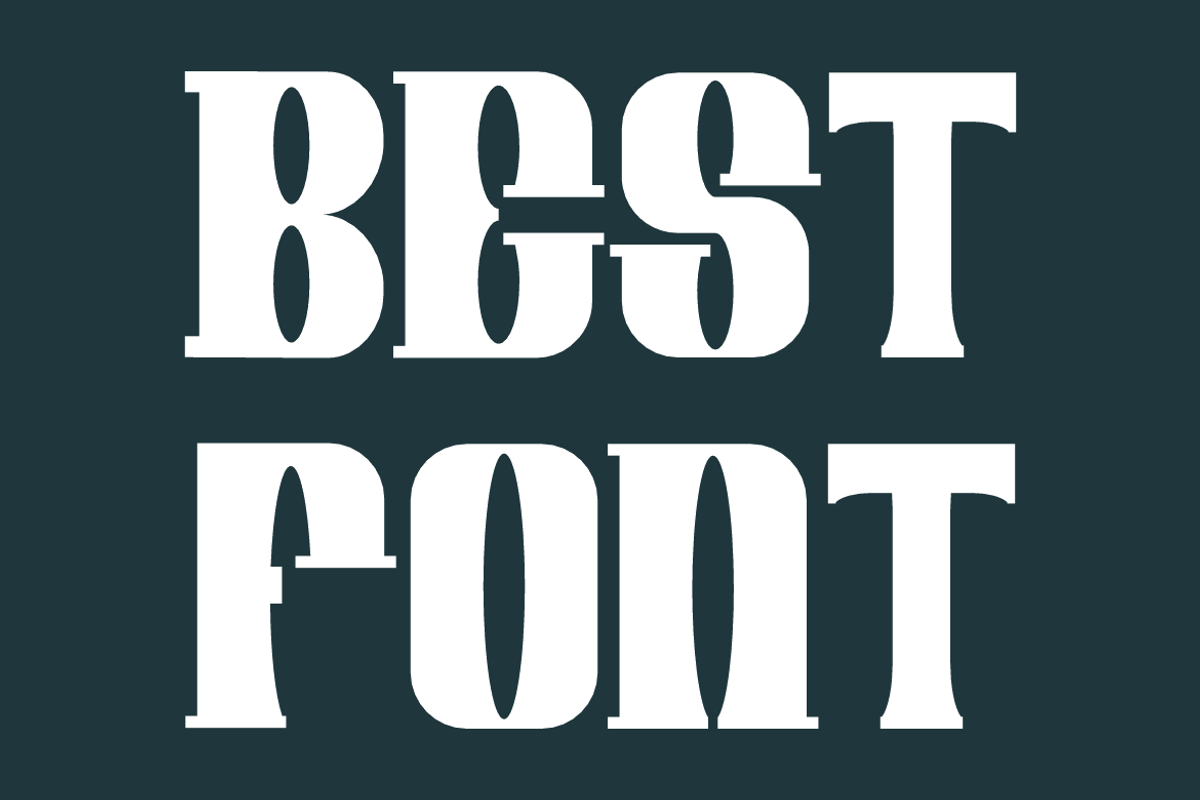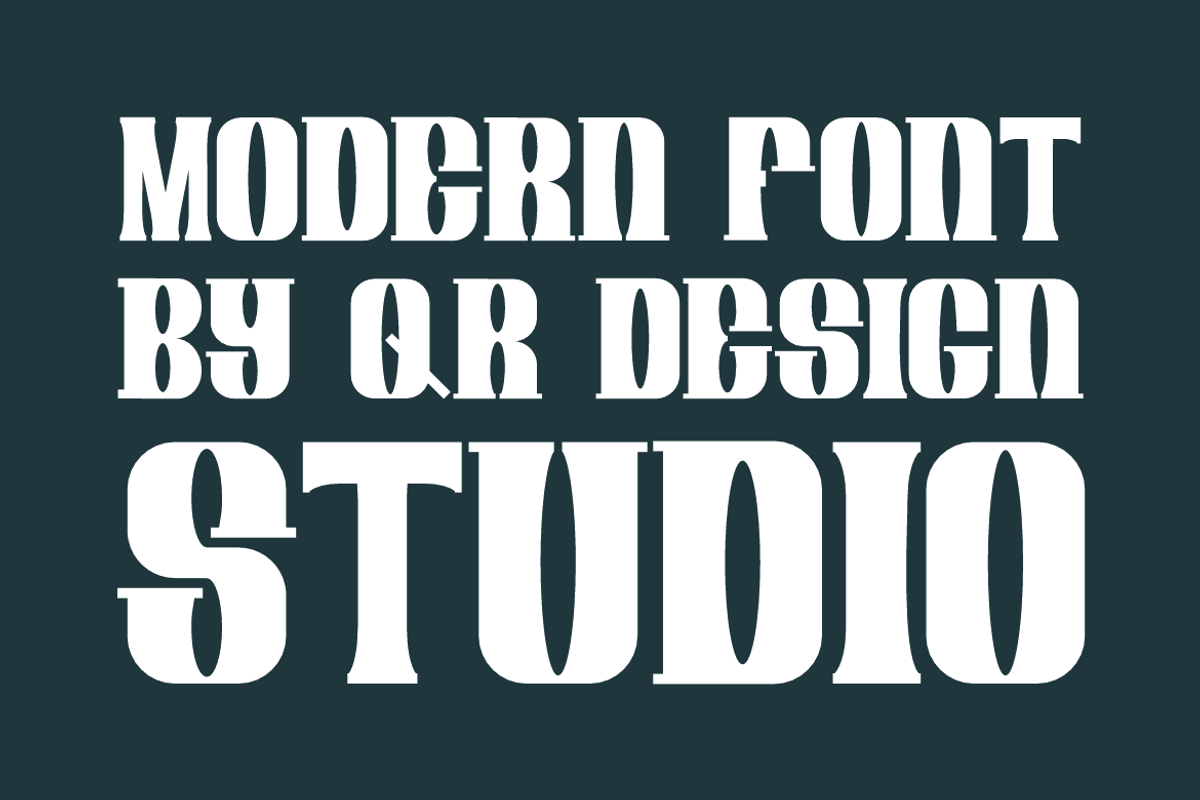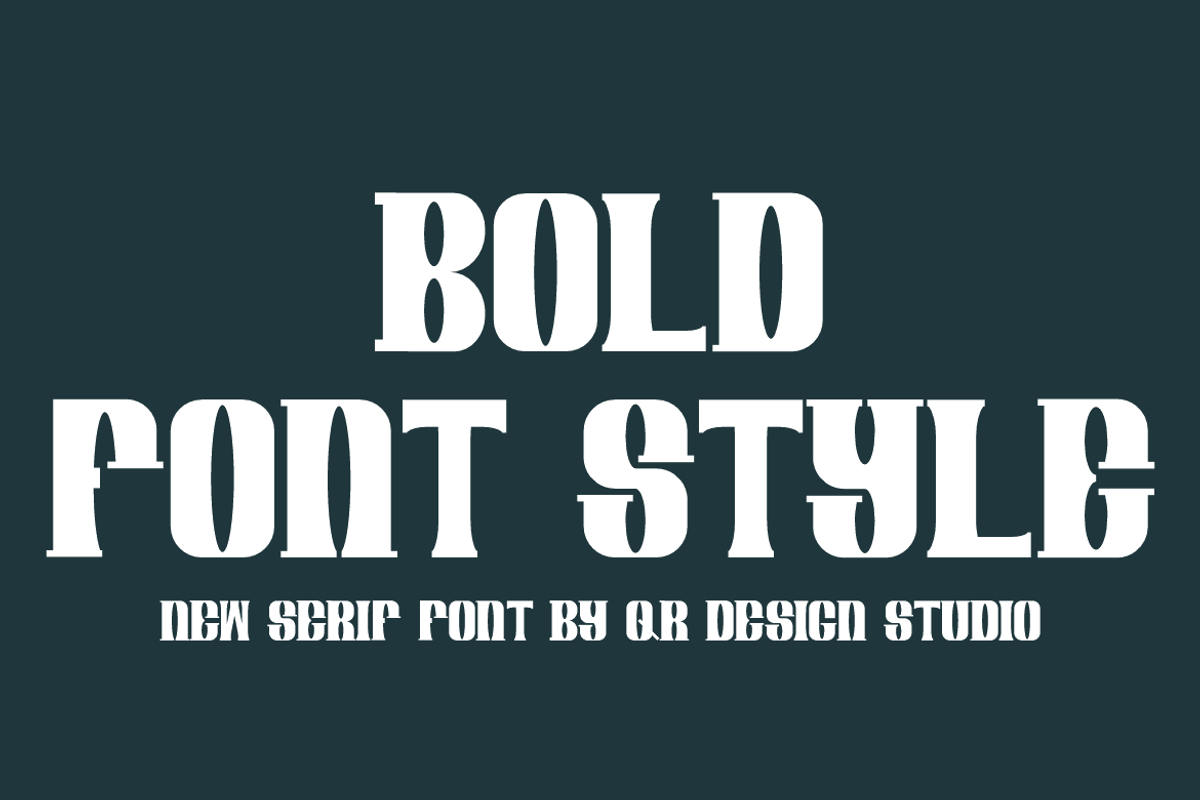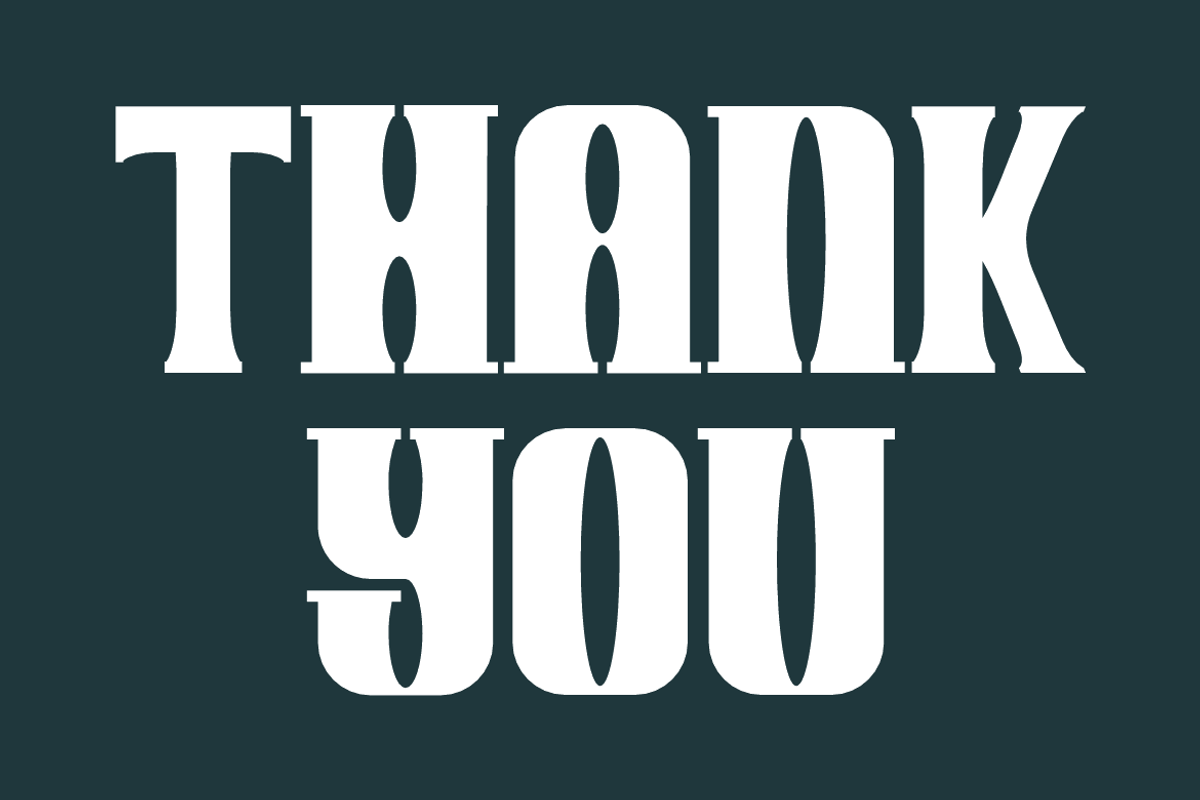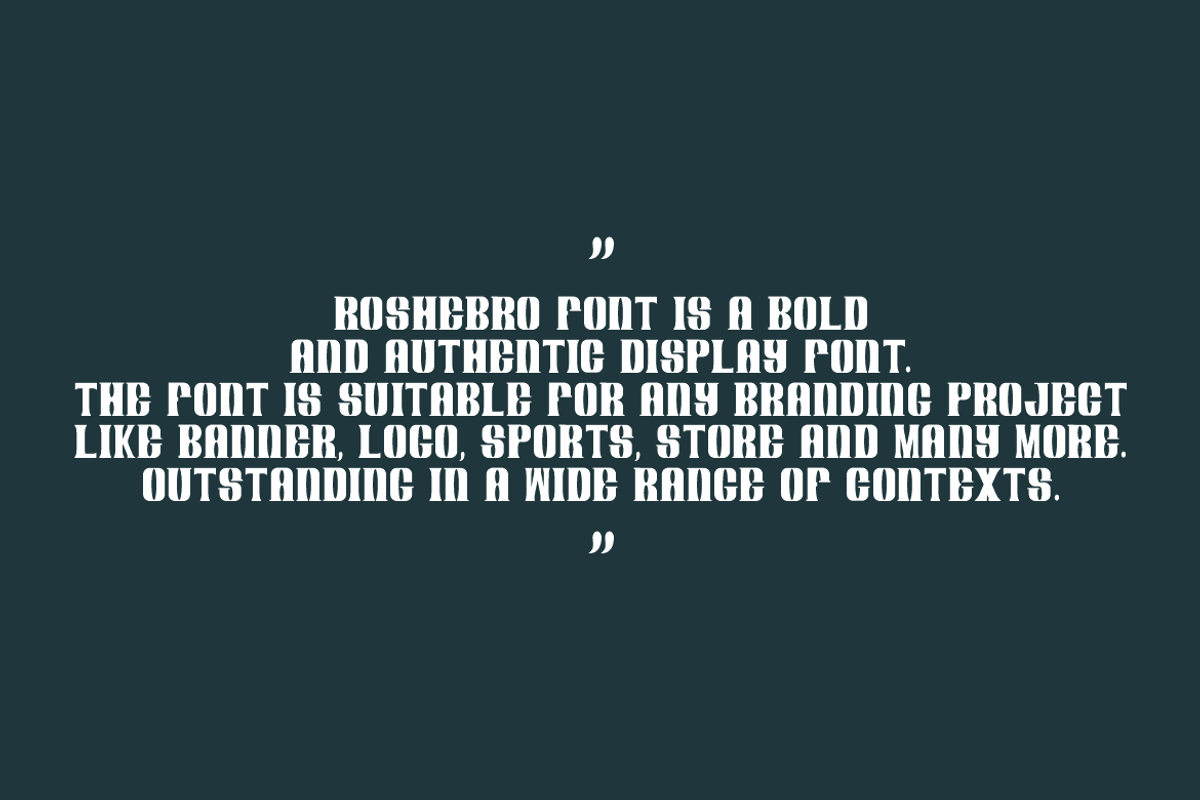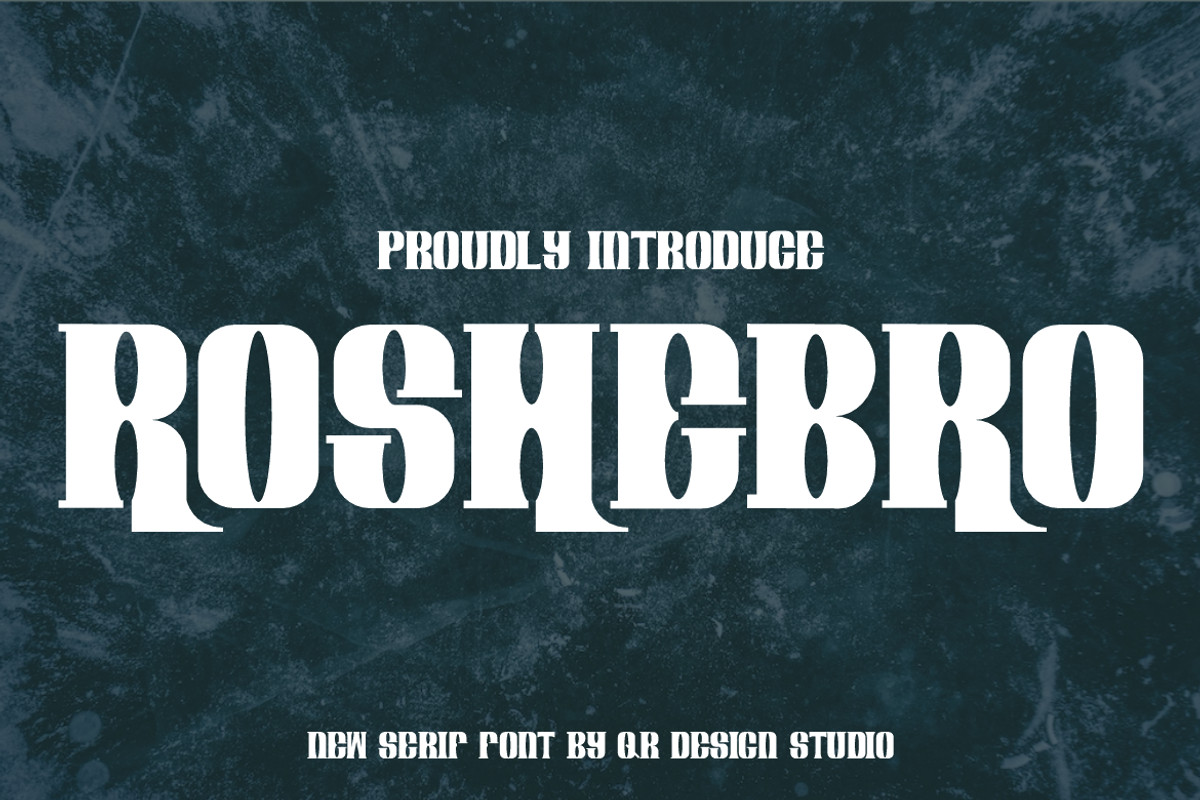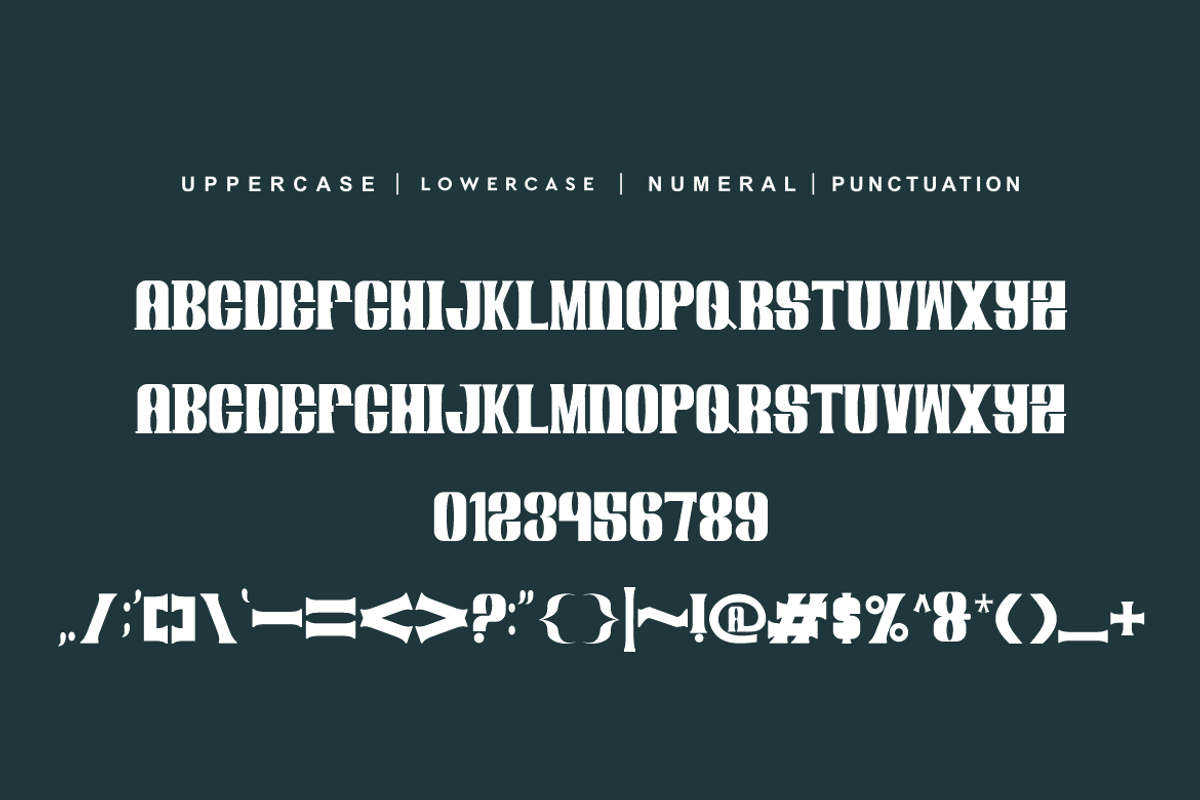
Roshebro
Roshebro Font is a bold and authentic display font. The font is suitable for any branding project like logo, sport, and many more. Outstanding in a wide range of contexts.